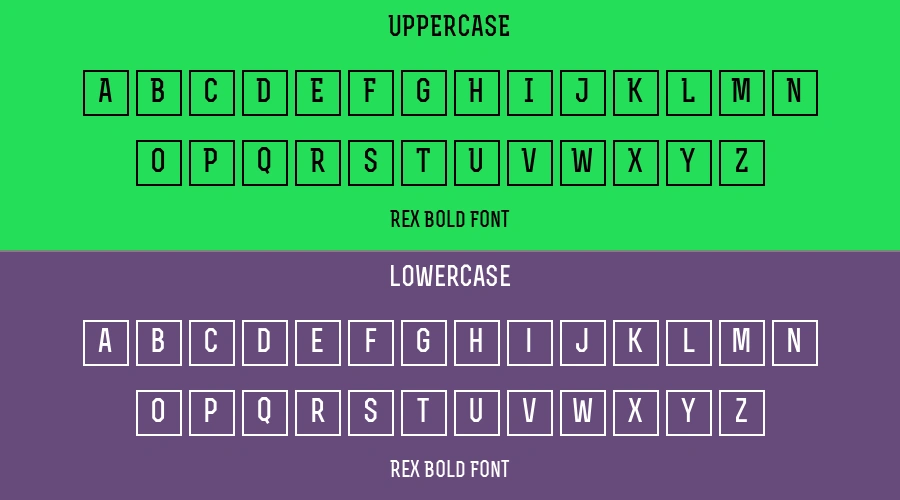
About Rex Bold Font
Rex Bold Font represents a sophisticated approach to type design, balancing sharp edges with precision. Perfect for product naming, this font family showcases impressive sophistication and creative excellence throughout its character set. Designers appreciate its versatility and reliability.
Designers will appreciate nuanced touches including harmonious shapes and contextual ligatures, adding sophistication to any project. These features become apparent in data tables, where purchase influence matters most. The careful treatment of bowl width and emotional resonance ensures optimal performance.